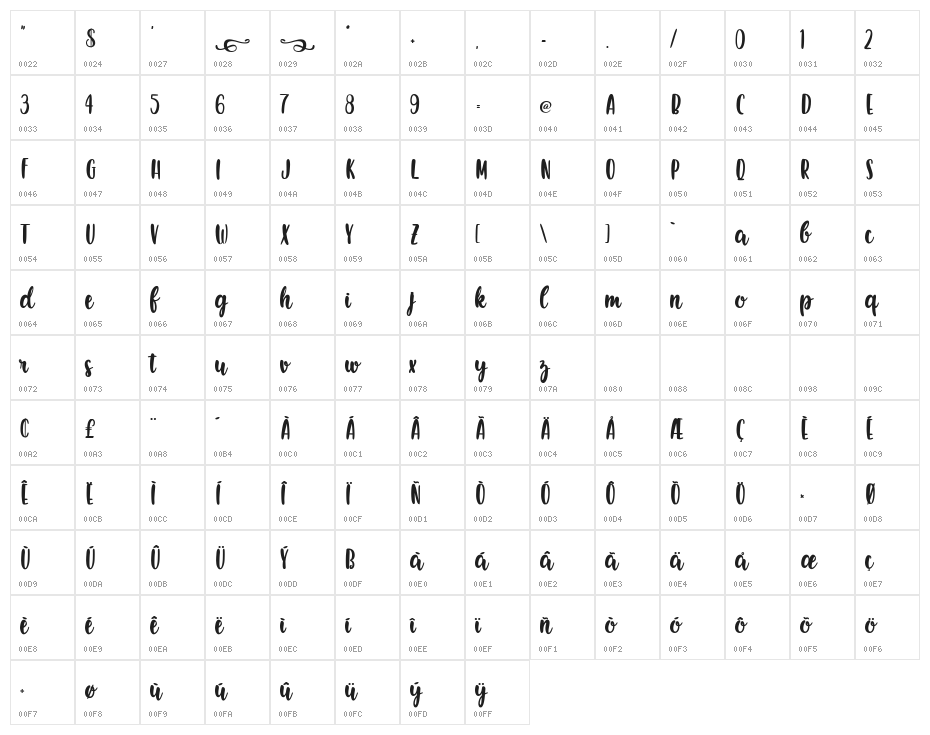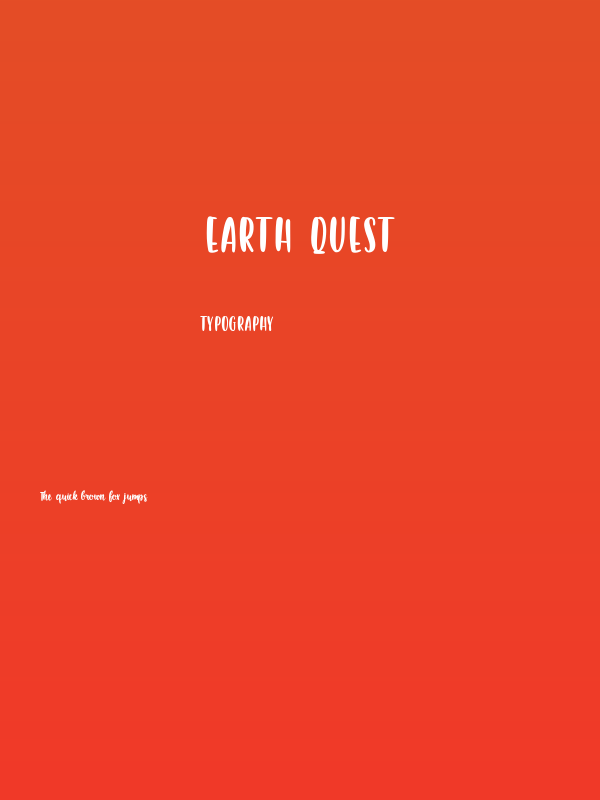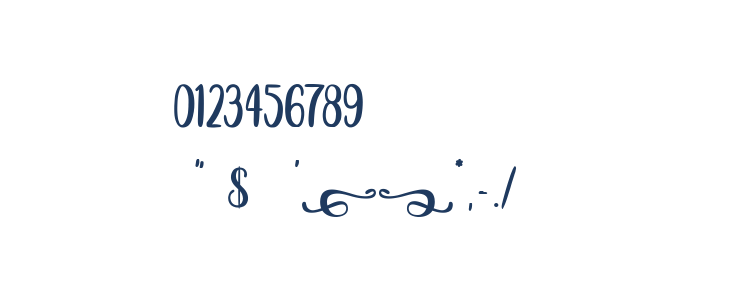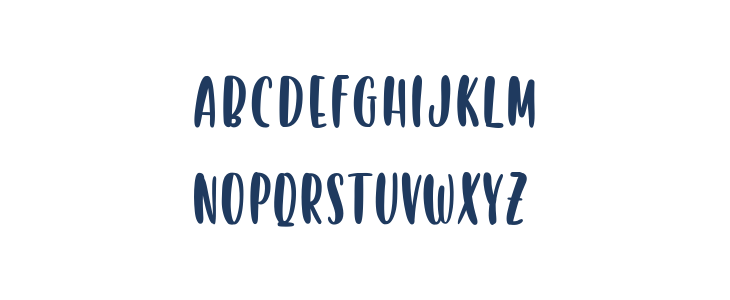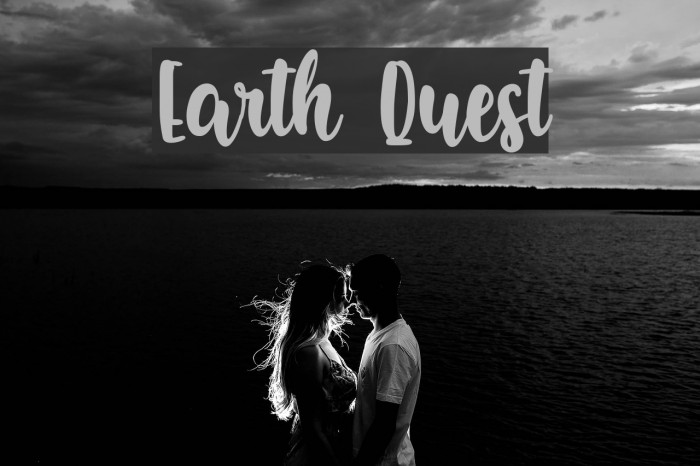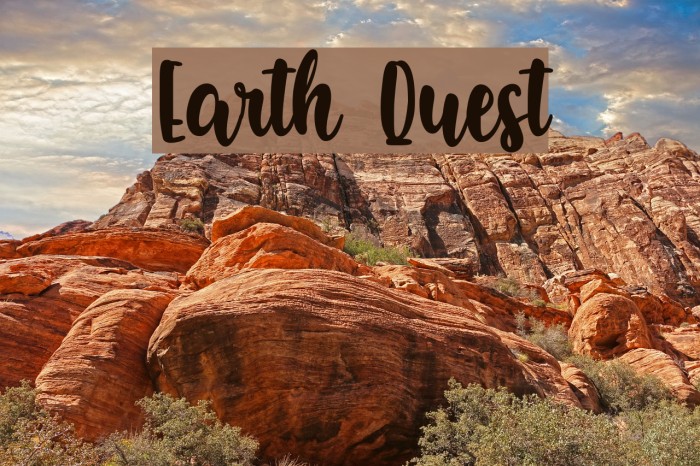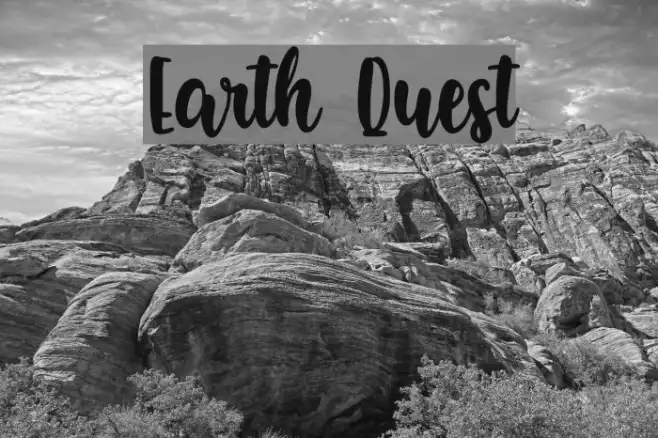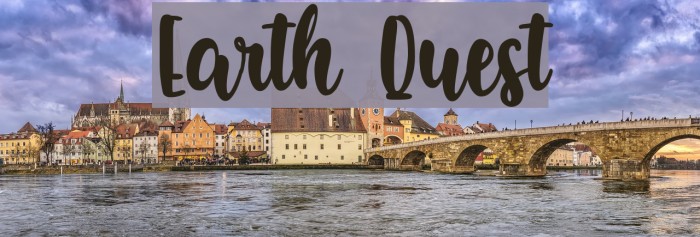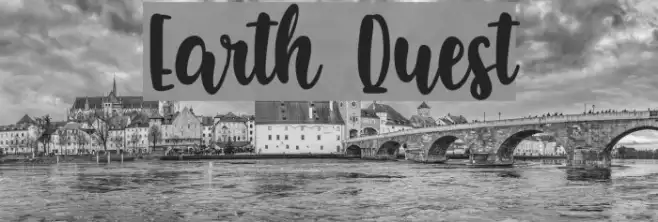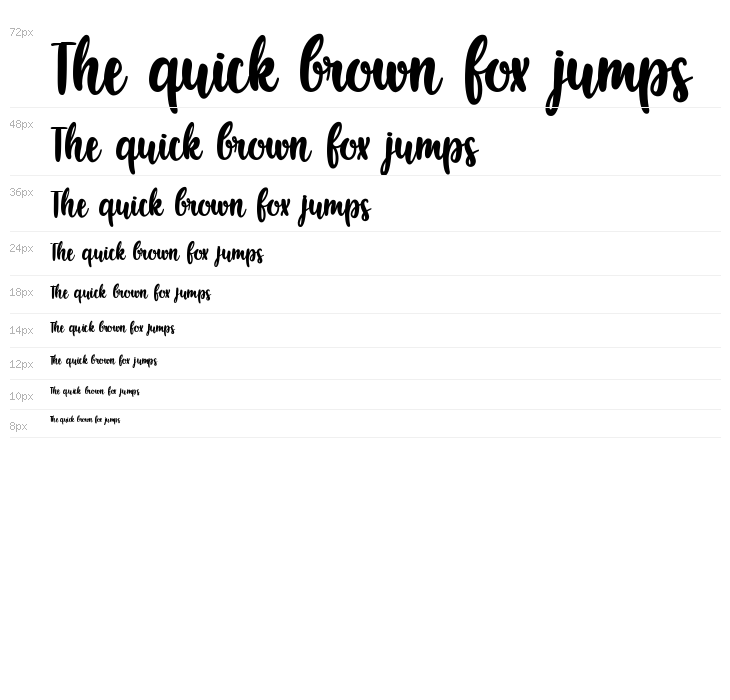
Earth Quest Font
Earth Quest Description
This font features a playful and bold handwritten style, characterized by its smooth curves and rounded edges. The uppercase letters are tall and slightly condensed, while the lowercase letters maintain a consistent flow with a slight slant, adding a touch of elegance. The numerals are clear and bold, matching the overall style of the alphabet. Special characters are creatively designed, adding a whimsical touch to the font. The strokes are consistent in weight, providing a harmonious appearance across all characters. This font is ideal for projects that require a personal and friendly touch, such as invitations, greeting cards, or branding materials.
| Proposed Projects | Ideal for invitations, greeting cards, branding materials, and playful designs. |